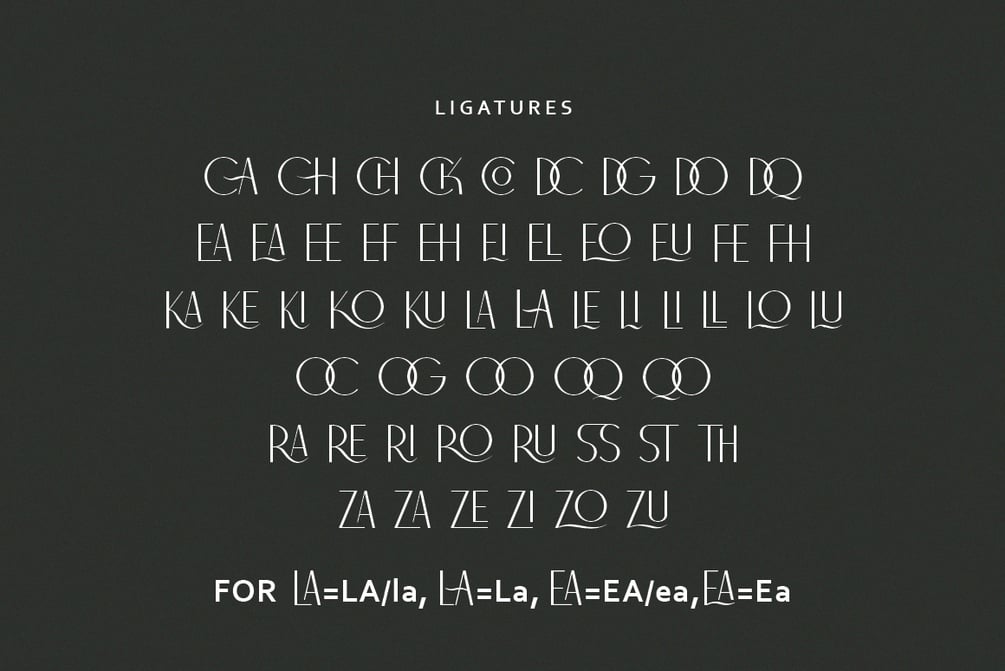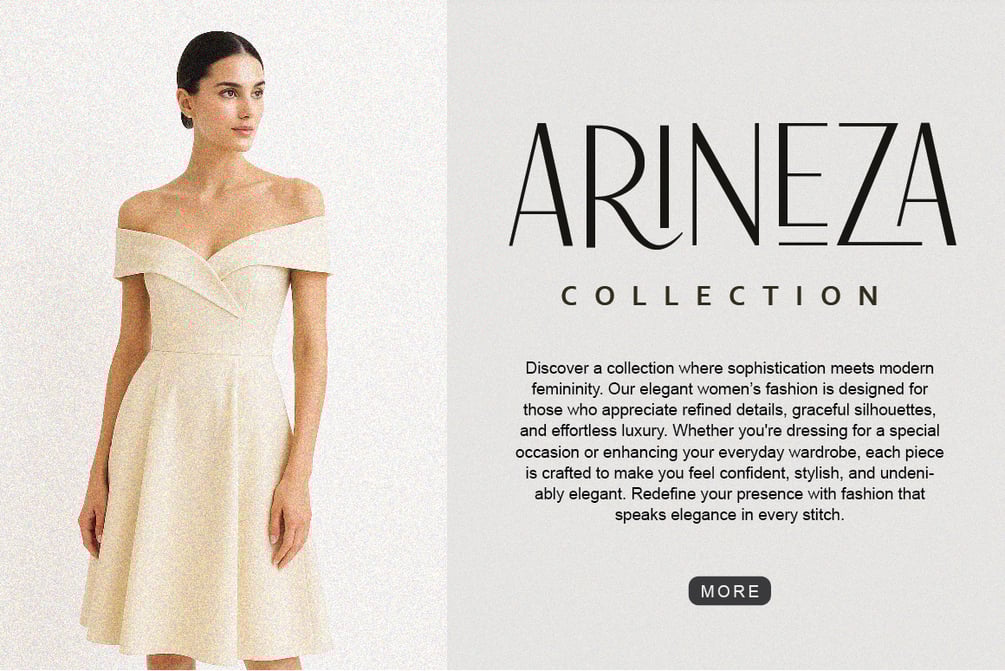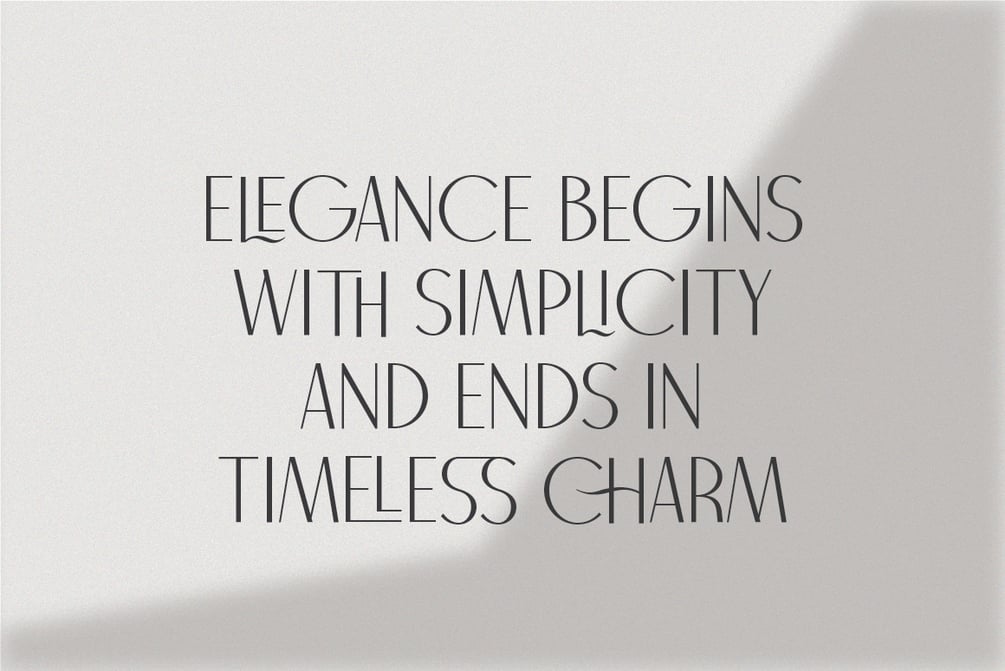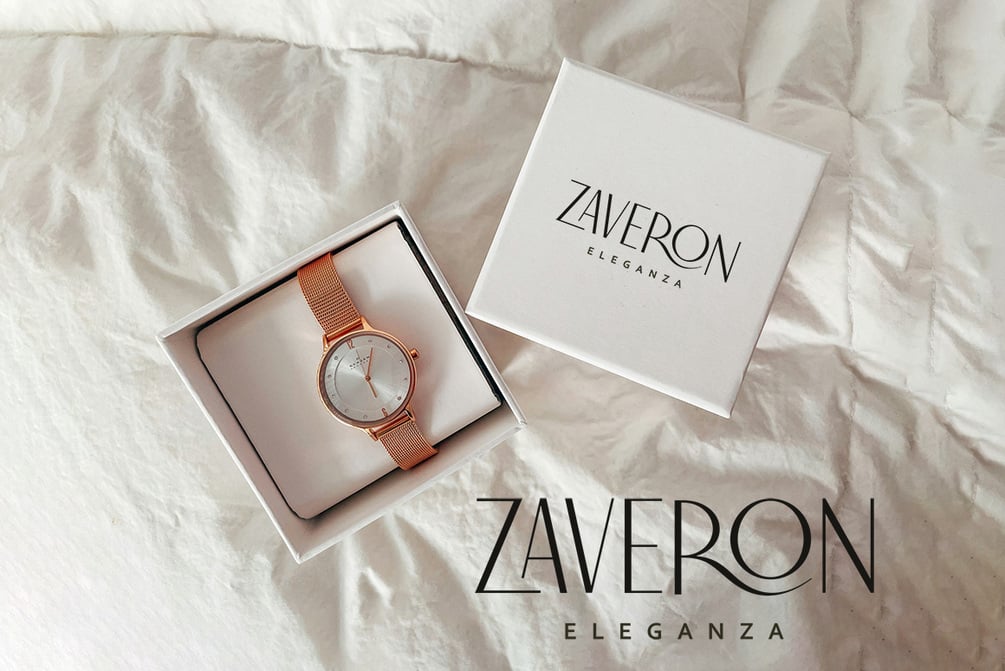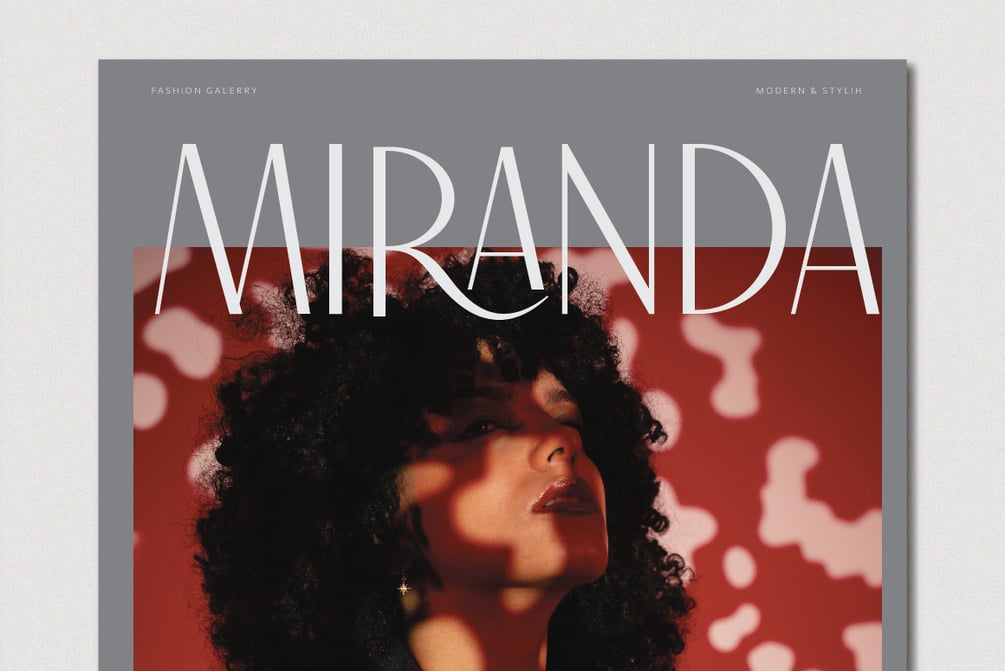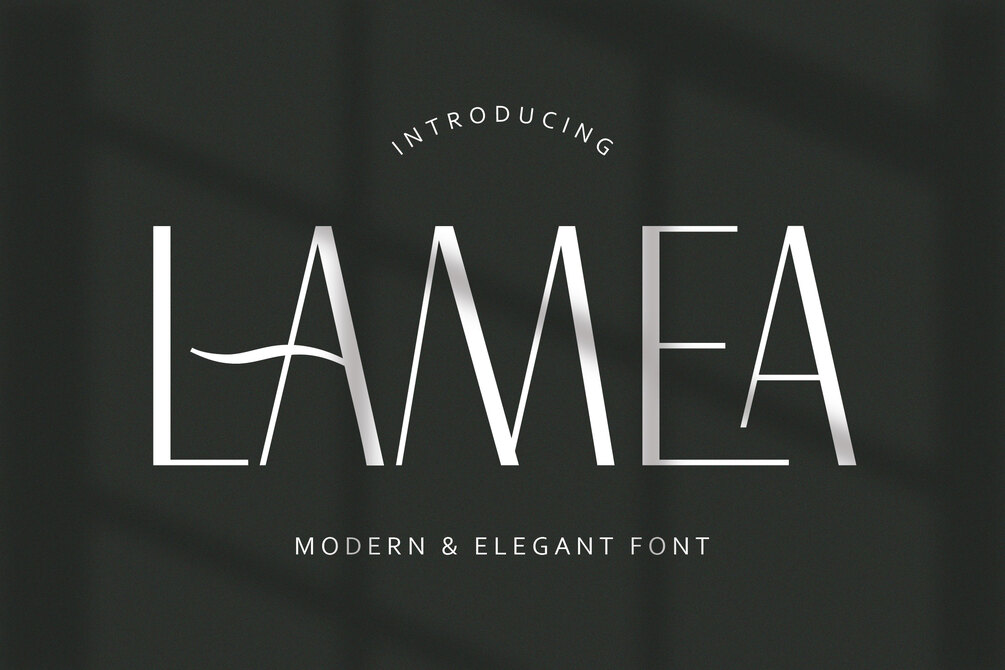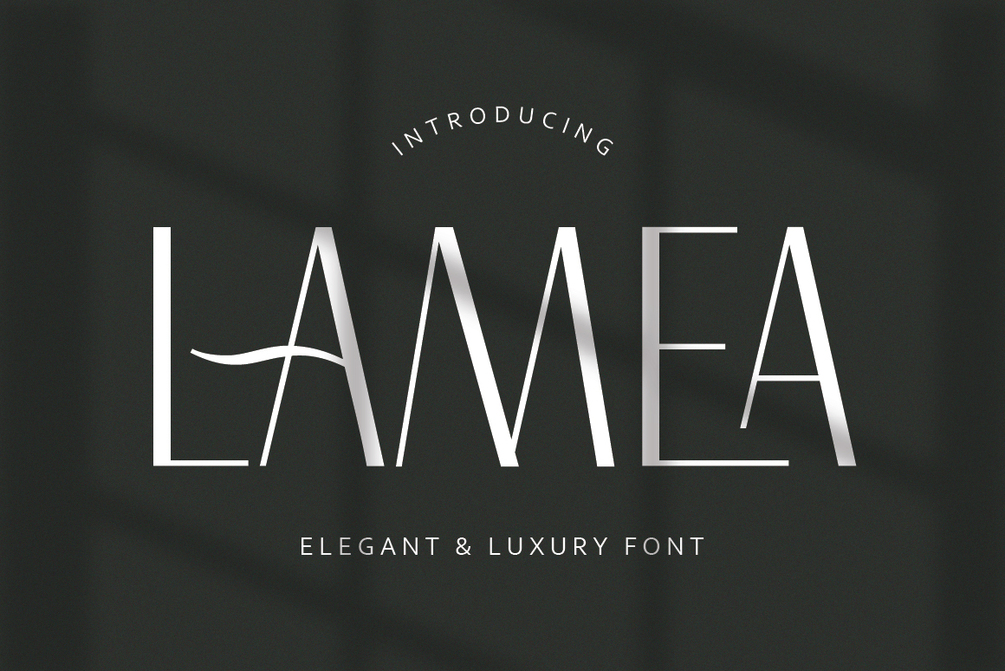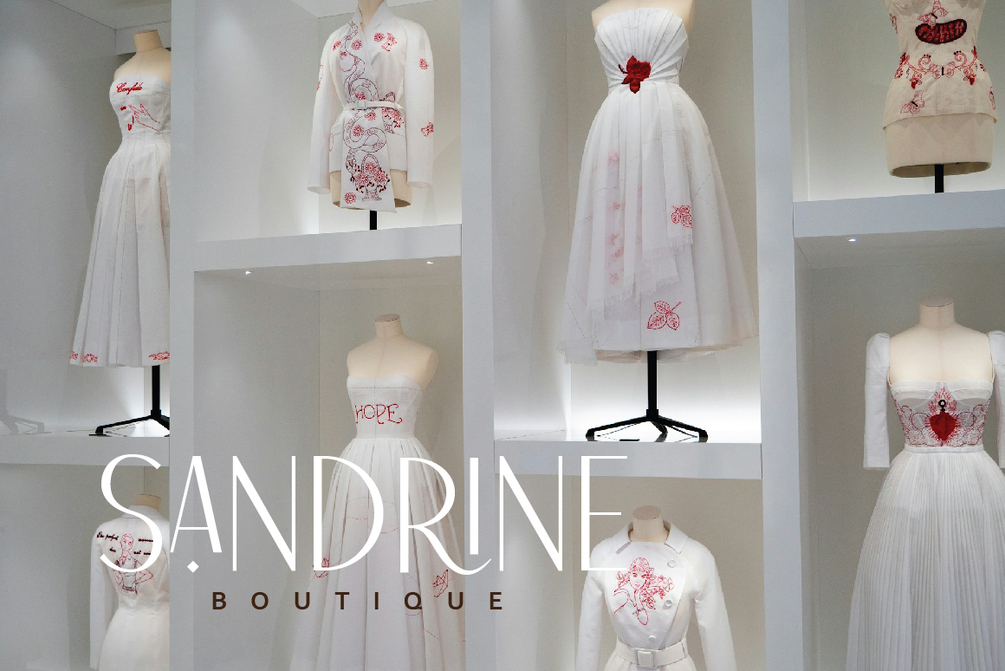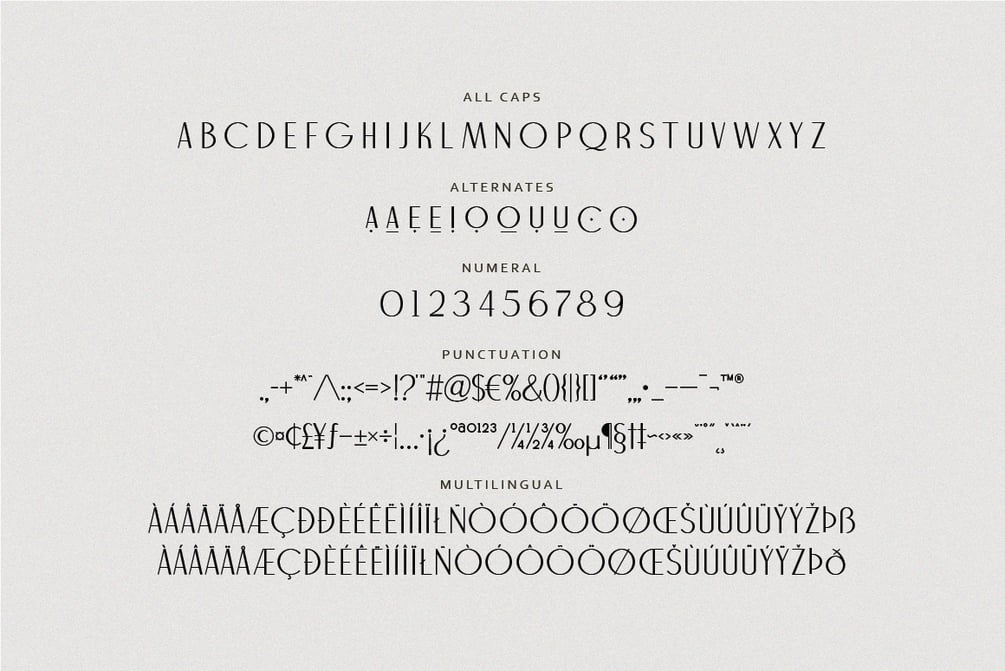
Lamea Font
Lamea is a modern and elegant font featuring elegant curves and distinctive letter shapes. It includes 25 unique ligatures that enhance its visual flow and add character to your typography. Perfect for fashion branding, editorial titles, logos, and creative projects that need a touch of luxury and uniqueness.
- All Caps, Numeral & Punctuation
- 52 Stylish Ligatures & Stylistic Alternates